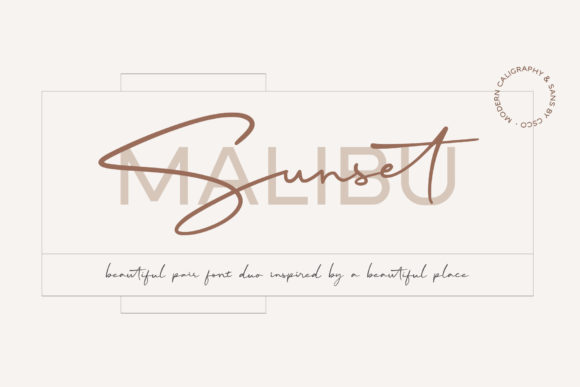
Malibu Sunset: The Perfect Duo Font for Crafters
Malibu Sunset, a match made in heaven duo font, is defined by an elegant touch and perfect for your favorite projects. Whether you're a crafter, Etsy seller, or handmade business owner, Malibu Sunset's incredibly distinct and timeless style will elevate your creations.
Using Malibu Sunset for Handmade Labels and Stickers
When it comes to creating handmade labels and stickers, Malibu Sunset offers a premium font that stands out. Its elegant and distinct style makes it ideal for product labels, adding a touch of sophistication and charm. Whether you're labeling candles, mugs, or tote bags, Malibu Sunset enhances the perceived quality and brand consistency of your products.
Malibu Sunset for Greeting Cards and Invitations
For greeting cards and invitations, Malibu Sunset is a display font that adds a unique and elegant flair. Its timeless style is perfect for wedding invitations, birthday cards, and special event announcements. The font's readability and charm make it a top choice for designers looking to create memorable and visually appealing stationery.
Creating Wall Art and Planner Pages with Malibu Sunset
Malibu Sunset is a versatile font that can transform your wall art and planner pages. Its elegant touch and distinct style make it ideal for creating printable wall art, inspirational quotes, and planner inserts. Whether you're designing farmhouse signs or modern wall decor, Malibu Sunset adds a sophisticated and artistic element to your designs.
Malibu Sunset for Product Packaging and Tags
When it comes to product packaging and tags, Malibu Sunset is a font that elevates your branding. Its elegant and distinct style makes it perfect for boutique tags, holiday product packaging, and gift boxes. The font's readability and charm enhance the overall presentation, making your products stand out and appeal to customers.
Practical Readability for Cutting Machines and Small Stickers
Malibu Sunset is not just beautiful; it's also practical for small spaces and cutting machines. When using this font for small stickers, product labels, and printed cards, its readability ensures that your text is clear and legible. This makes it a reliable choice for mockup previews and detailed design work.
Font Pairing Ideas with Malibu Sunset
To create a balanced and visually appealing design, consider pairing Malibu Sunset with other fonts. An expressive script font or handwritten font can complement its elegance, while a clean sans serif font or a simple serif font can add a modern touch. Experiment with different combinations to find the perfect match for your project.
Incorporating Malibu Sunset into Your Brand Identity
Malibu Sunset is not just a font; it's a key element in building a strong and recognizable brand identity. Its elegant and distinct style can be used across various platforms, from logo design and packaging design to web design and social media graphics. By incorporating Malibu Sunset into your brand, you create a consistent and professional image that resonates with your audience.